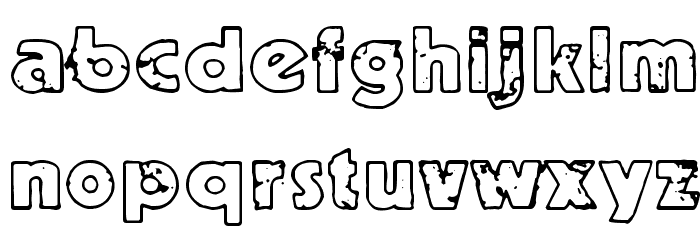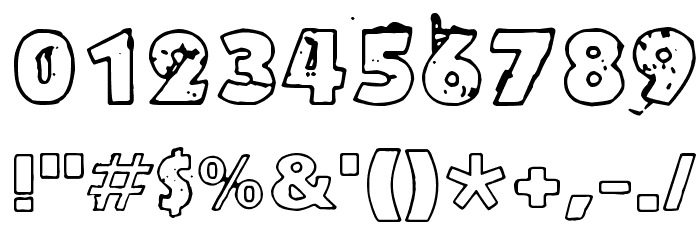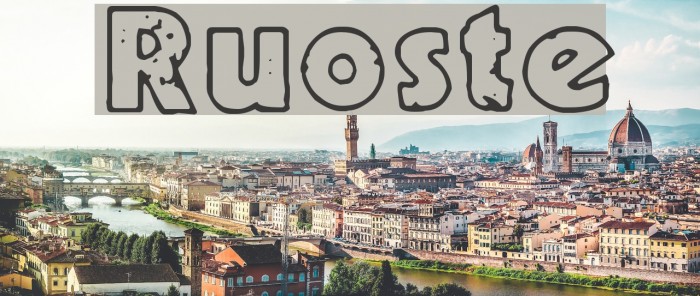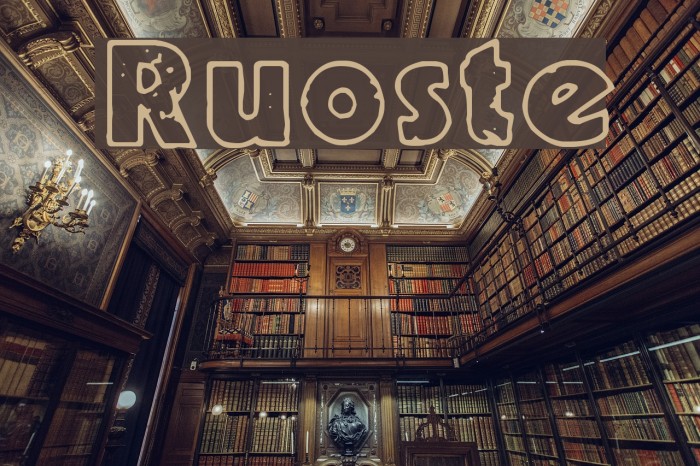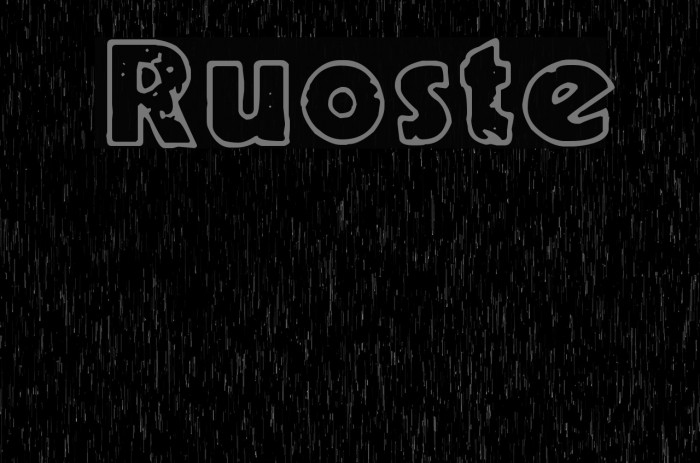
Ruoste Font
This font features a distressed, grunge style with a bold and rugged appearance. Each character appears weathered, with irregular edges and a textured look that suggests wear and tear. The uppercase and lowercase letters maintain a consistent height, contributing to a uniform appearance despite the distressed details. Numbers and special characters follow the same design, ensuring a cohesive look across all elements. The font's unique style makes it stand out, offering a vintage and edgy aesthetic that is perfect for projects needing a bold statement.
A bold, distressed font with a grunge aesthetic and textured details.
- Proposed Projects: Ideal for posters, album covers, branding for edgy or vintage-themed products, and any design needing a bold, standout typeface.
- Overall Style: Vintage, Grunge